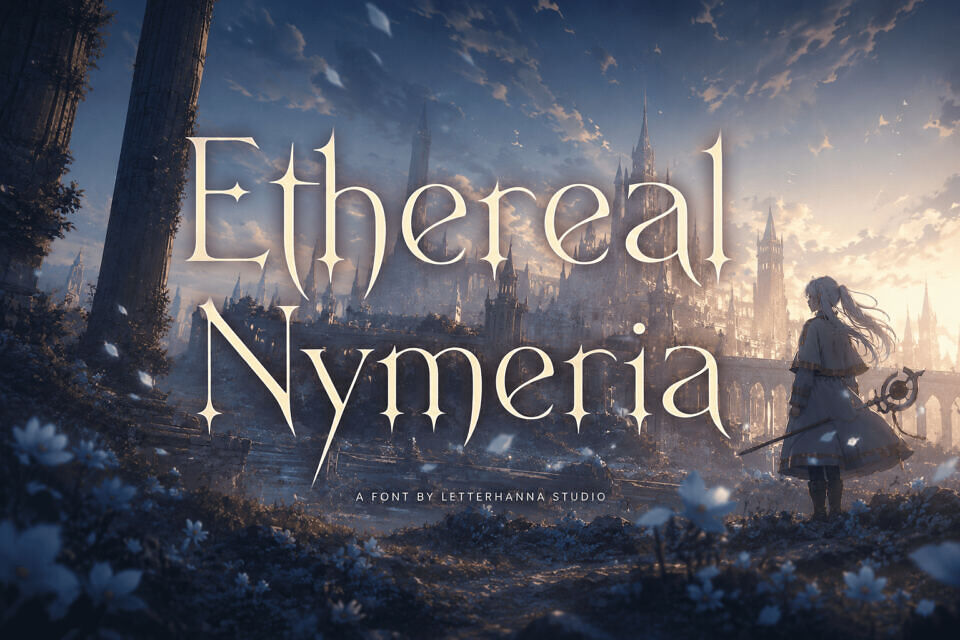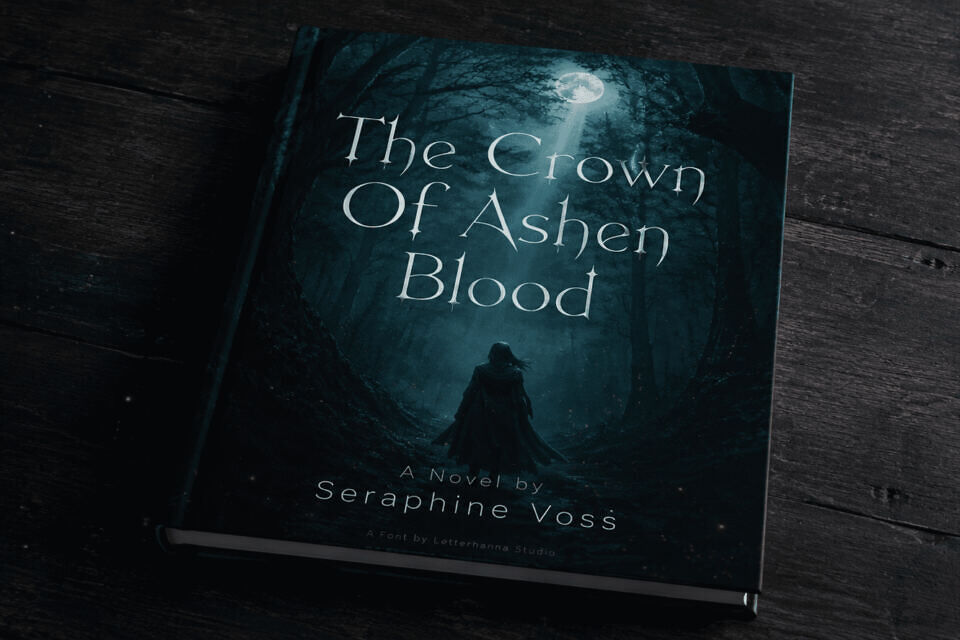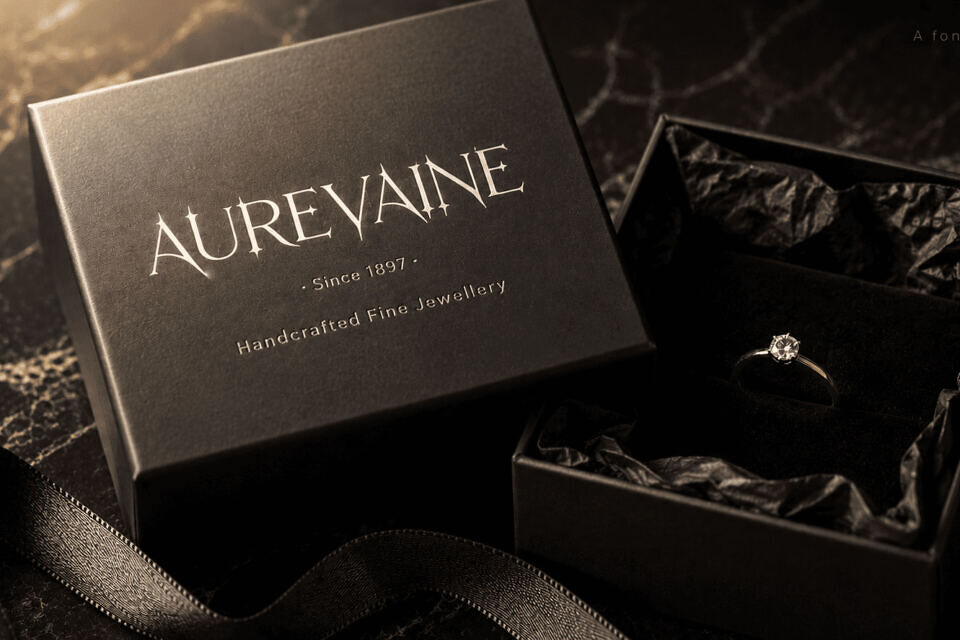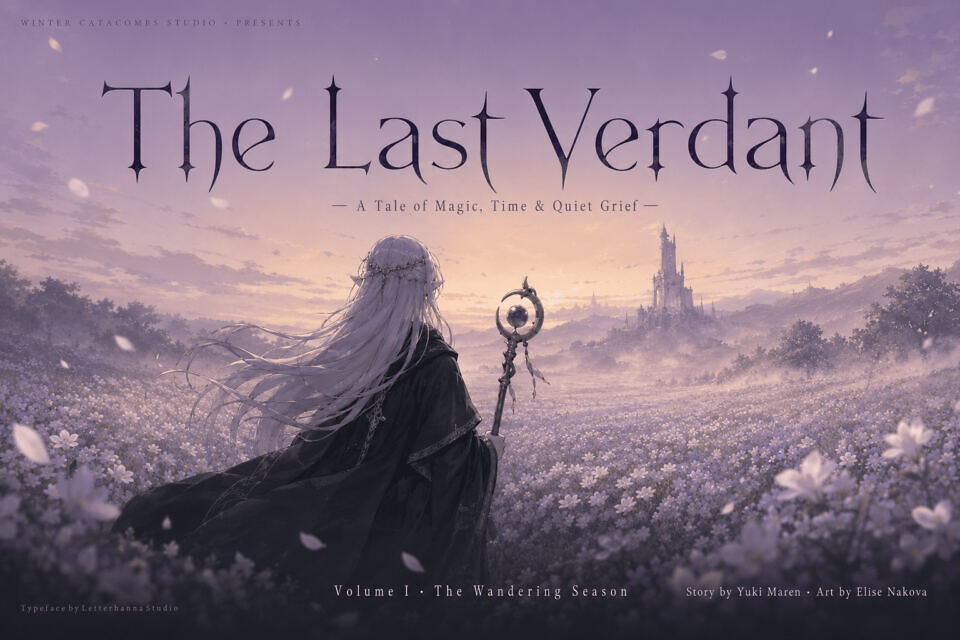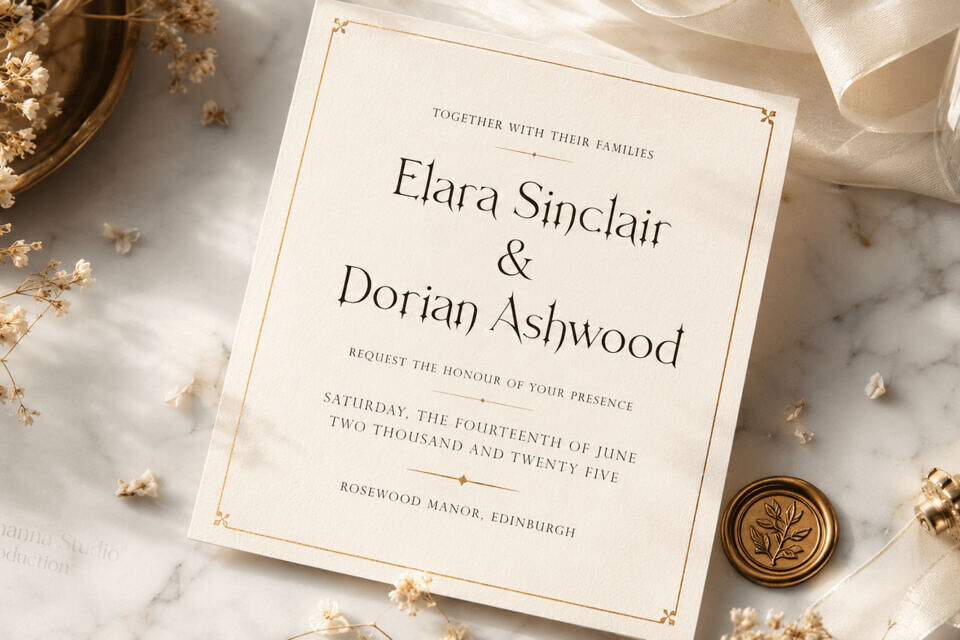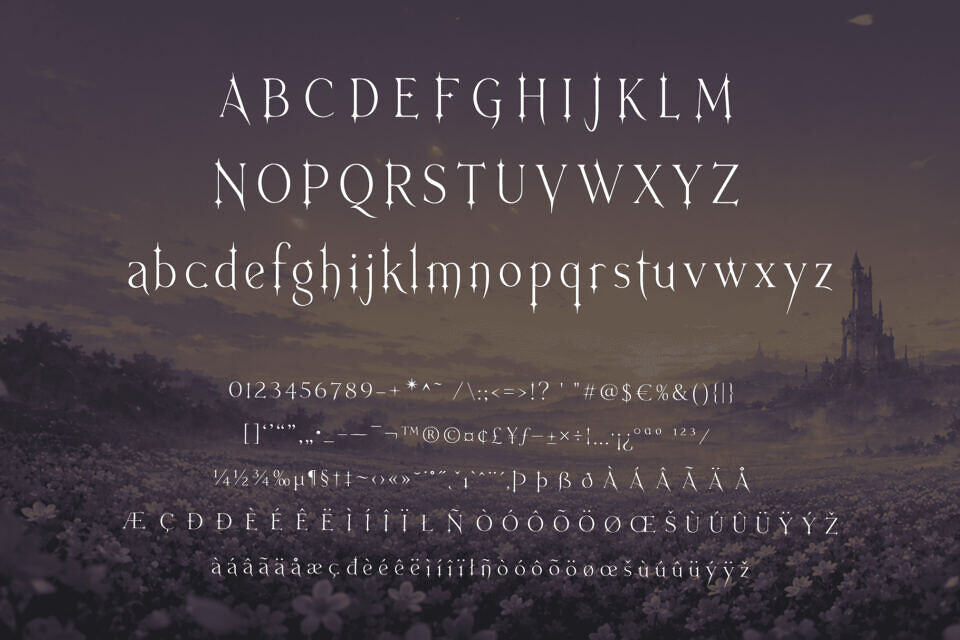
Ethereal Nymeria Font
Born from the intersection of gothic architecture and old-world calligraphy, Ethereal Nymeria is a high-contrast serif typeface that refuses to be ordinary. Its razor-thin hairlines flow like silk threads, then erupt into bold, commanding strokes — a visual tension that creates presence the moment it hits the page. Star-burst terminals punctuate each letterform like tiny crowns, making even a single word feel ceremonial.
Ethereal Nymeria was crafted for brands, designers, and creators who understand that typography is never just letters — it’s atmosphere. It’s the first impression before a single word is read. Whether you’re designing a luxury wedding suite, a high-end editorial layout, a fantasy book cover, or a brand identity that demands reverence, this font delivers the kind of gravitas that can’t be faked.